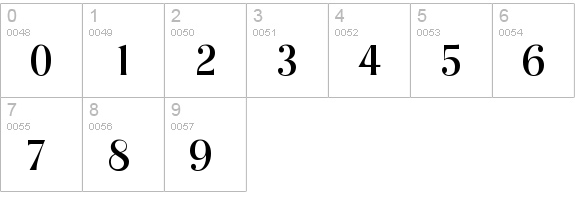
Introducing Tennessee SF, a captivating and versatile font that effortlessly combines elegance and modernity. This font is a true testament to the beauty of typography, with its clean lines and subtle details. Tennessee SF is the perfect choice for those seeking a font that exudes sophistication and creativity. Its graceful curves and balanced letterforms make it incredibly pleasing to the eye, while its versatility allows it to be used in a wide range of design projects. What sets Tennessee SF apart is not only its stunning aesthetic, but also the fact that it is free. Yes, you read that right! This remarkable font is freely available to download at FontsMarket.com. Now, you can enhance your designs with this exquisite typeface without breaking the bank. Whether you're working on a branding project, creating eye-catching advertisements, or designing elegant invitations, Tennessee SF will undoubtedly elevate your work to new heights. Its timeless appeal and effortless legibility make it an excellent choice for both print and digital media. With Tennessee SF, you have the freedom to explore your creativity and make a lasting impact. So why wait? Download this remarkable font today from FontsMarket.com and see your designs come to life with a touch of elegance and sophistication.